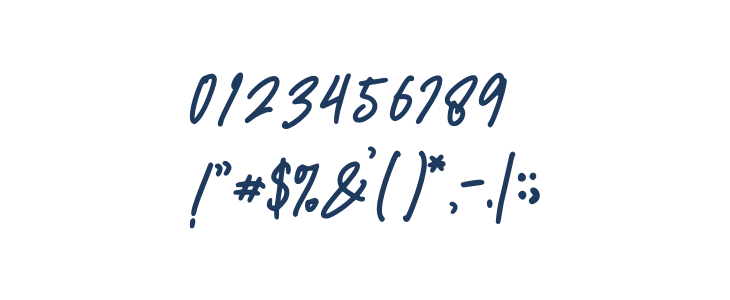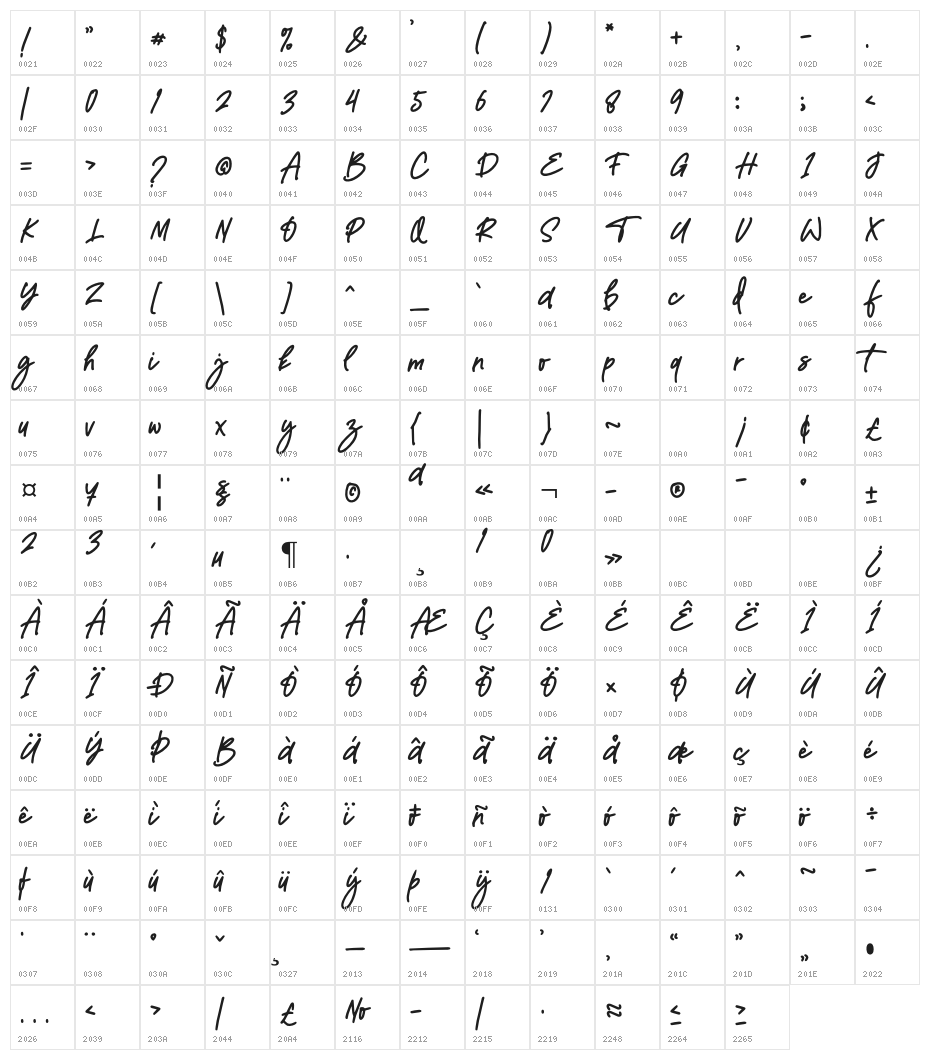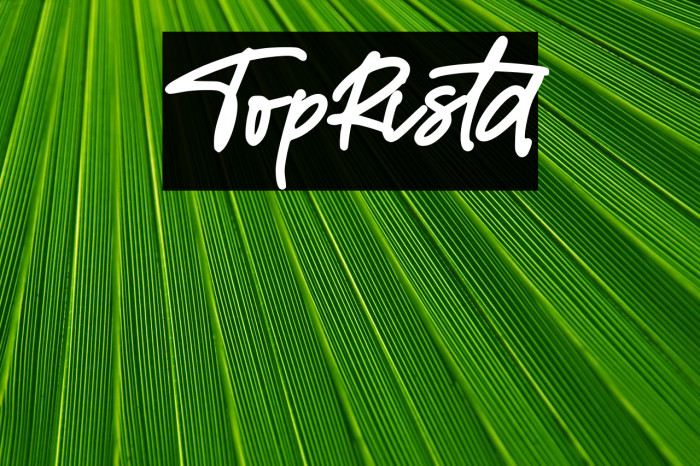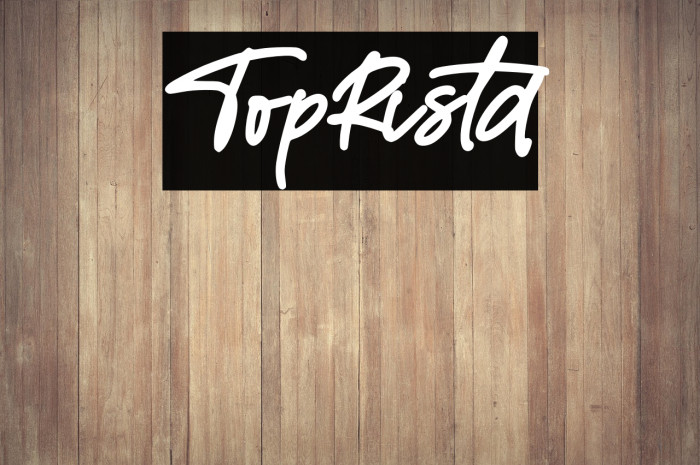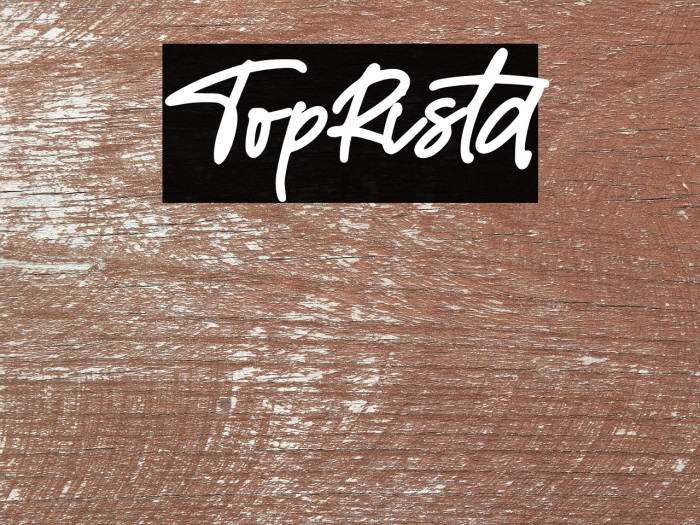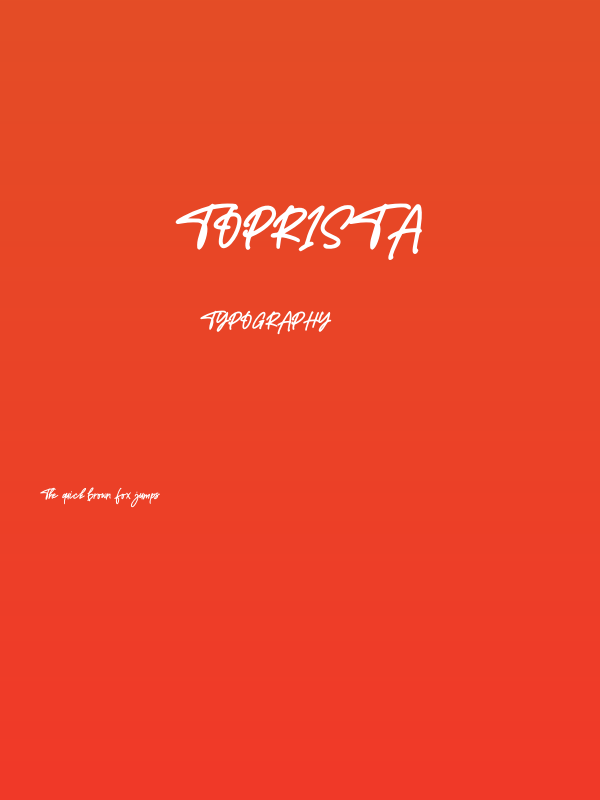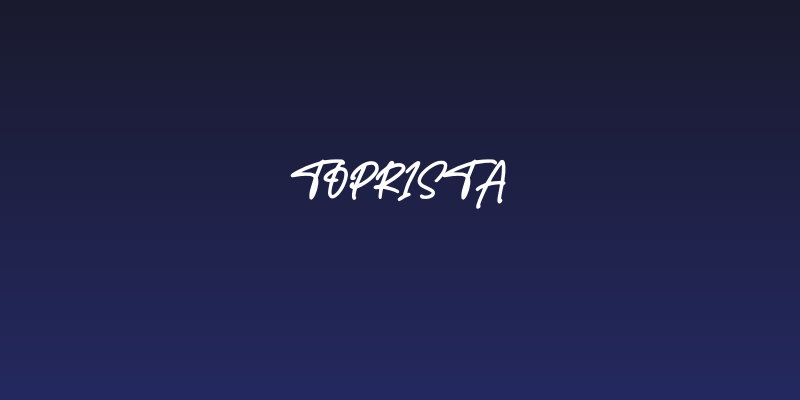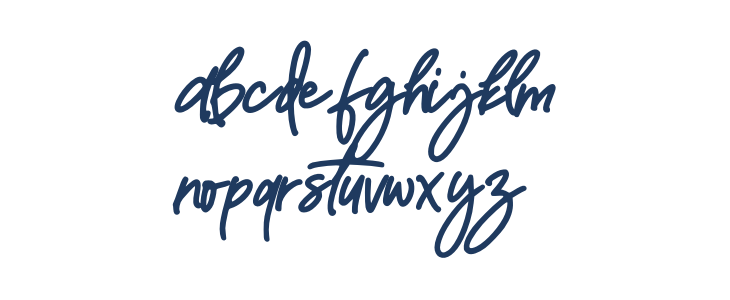
TopRista Font
TopRista Description
This font exudes a dynamic and energetic vibe with its bold, handwritten style. The letters are fluid and slightly slanted, giving a sense of motion and personality. The uppercase and lowercase letters maintain a consistent flow, with some characters featuring unique loops and curves that add to its charm. The numbers and special characters are equally expressive, maintaining the same lively aesthetic. This font is perfect for projects that require a personal touch or a creative flair, such as invitations, posters, or branding materials.
| Use Case | Logos, Headlines, Posters |
| Proposed Projects | Ideal for invitations, posters, branding, and any project needing a personal touch. |